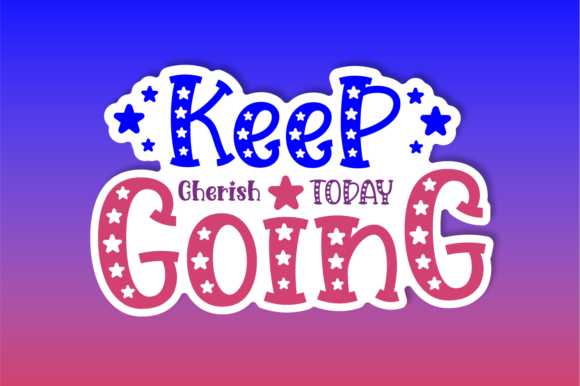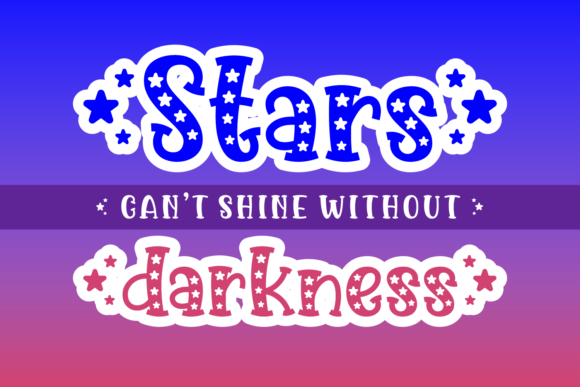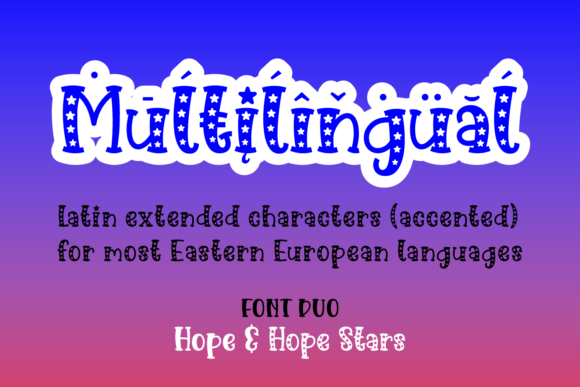
Unlocking the Power of Hope and Beauty in Design
There’s nothing quite like that moment when a design idea strikes you out of the blue – the rush of excitement, the spark of creativity, and the desire to bring it to life. As a designer, you know that finding the right font can make all the difference between a good design and a great one. And that’s exactly where the Hope Stars Font comes in – a stunning duo font that combines the elegance of a serif font with the whimsy of a decorative one.
The Hope Stars Font is more than just a pretty face; it’s a versatile tool that can help you convey both the solemn and the playful in your designs. Whether you’re working on a project that requires sophistication or a touch of whimsy, this font is sure to deliver. And with its dual characters, you can experiment with different styles and effects to create truly unique designs that reflect your vision and personality.
Hope Stars Font Key Features
- Font Family: Hope Stars is a unique, hand-drawn font family designed to evoke a sense of nostalgia and whimsy.
- Character Count: The font family includes over 400 characters, including uppercase and lowercase letters, numbers, punctuation, and special characters.
- Unique Characteristics: Hope Stars features a distinctive, hand-drawn aesthetic with subtle imperfections and variations in line weight, giving it a charming, human touch.
Hope Stars Font Review
Overall, I’d say the Hope Stars Font is a sweet addition to any design project. It’s playful, yet elegant, making it perfect for creating eye-catching headlines and titles.
- Unique Character: The Hope Stars Font has a distinct personality that sets it apart from other fonts. Its whimsical feel makes it ideal for projects that require a touch of magic.
- Legibility: Despite its decorative nature, the font remains legible even at smaller sizes. This makes it a great choice for projects where readability is crucial.
- Over-Use: With its playful nature, it’s easy to over-use the Hope Stars Font. Be cautious not to overdo it, as it can quickly become overwhelming.
- Limited Versatility: While the font works well for headings and titles, it may not be the best choice for body text. It can be too decorative for paragraphs and may detract from the content.
Overall, I’d give the Hope Stars Font 4 out of 5 stars. It’s a great addition to any designer’s toolkit, but it’s essential to use it judiciously to avoid over-usage and maintain readability.
Getting the Most Out of Hope Stars Font
To get the most out of Hope Stars Font, use it for:
1. Inspirational quotes and messages.
2. Children’s book illustrations.
3. Handwritten-style invitations and stationery.
Hope Stars Font is commonly used for:
1. Social media graphics.
2. Print materials (business cards, brochures, etc.).
3. Digital products (ebooks, templates, etc.).
Alternatives to Hope Stars Font
Great Vibes is a modern, elegant script font that works well for various design projects, including invitations, logos, and signage. It has a similar playful and whimsical feel to Hope Stars Font but is more refined and sophisticated.
When to use: Use Great Vibes Font for designs that require a touch of elegance and sophistication, such as wedding invitations, luxury branding, and upscale packaging.
Comparison: While Hope Stars Font is more casual and playful, Great Vibes Font is more refined and sophisticated. Great Vibes Font has a more fluid and connected feel, making it suitable for longer text.
Carolyna Pro is a modern script font that combines elegance and sophistication with a touch of playfulness. It is ideal for designs that require a unique and eye-catching look, such as branding, packaging, and advertising.